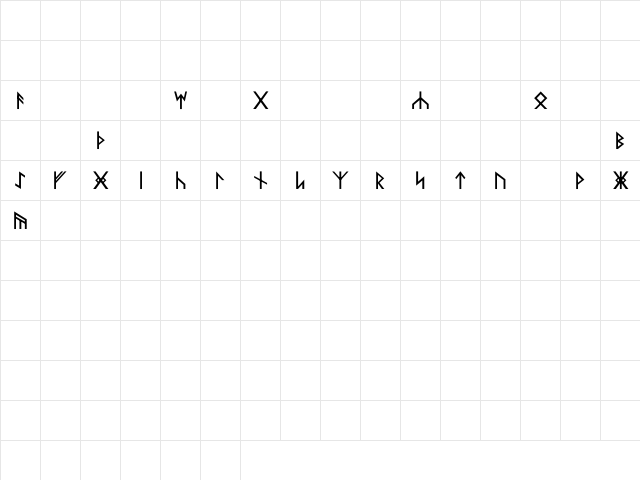
Norse Code Regular
Design Context for Norse Code Typeface
Norse Code uses fixed-width spacing throughout, giving it the structured, systematic character associated with coding environments and technical documentation.
A natural fit for code editors, technical documentation, developer-focused branding, and terminal-inspired UI.
Pro Tip: Pair Norse Code with a proportional sans for UI contexts where code-style labels and regular body copy need to coexist.